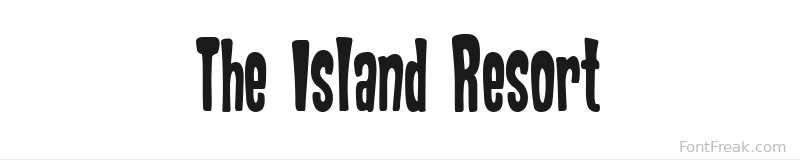
The Island Resort
The Island Resort font by woodcutter Manero is a captivating display typeface that combines playful charm with a relaxed tropical vibe. Its unique design falls into the decorative category, making it a perfect choice for projects that aim to evoke a sense of leisure and escape. The font features a bold stroke weight with a distinct lack of sharp edges, offering a soft, approachable feel. The letters are generously spaced, enhancing readability while contributing to its laid-back aesthetic. Decorative elements, such as rounded corners and whimsical curves, add to the overall inviting nature of the typeface.
This font is particularly well-suited for a variety of creative applications. It shines in wedding invitations, where its friendly character can set a romantic yet casual tone. Movie posters for light-hearted films can benefit from its engaging style, drawing in audiences with a fun, inviting look. Restaurant menus, especially those for tropical or beach-themed establishments, can leverage The Island Resort font to create a cohesive brand image that reflects a laid-back dining experience. Additionally, it can enhance social media graphics and promotional materials aimed at travel destinations or leisure activities, appealing to the wanderlust spirit in consumers.
The target audience for this font includes graphic designers looking for unique typefaces to elevate their projects, small business owners seeking to capture attention with distinctive branding, and content creators who want to infuse their work with a touch of personality. The Island Resort font free download offers an accessible option for those wishing to incorporate this delightful typeface into their designs.
What makes The Island Resort font stand out is its ability to convey a sense of warmth and relaxation while remaining versatile enough for various uses. This font brings a breath of fresh air to any creative endeavor, inviting viewers to experience a slice of paradise.